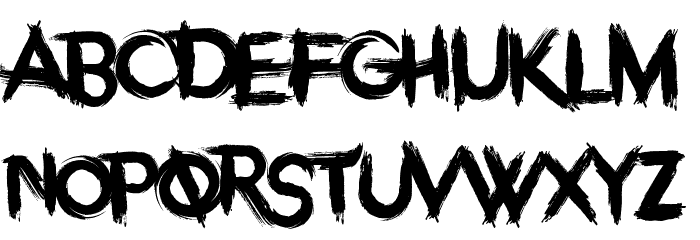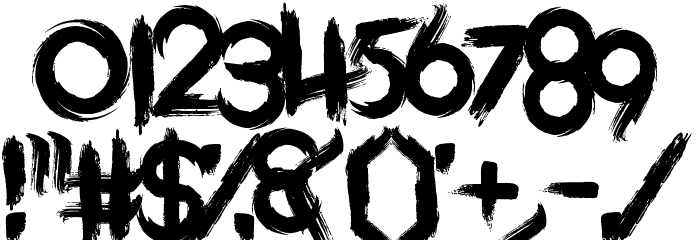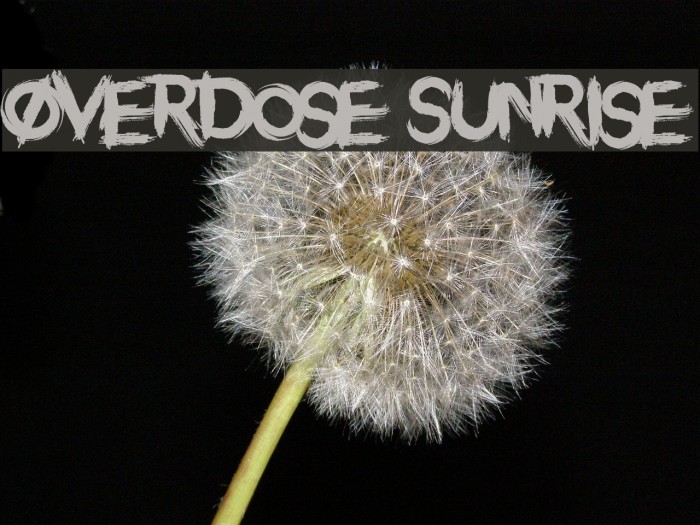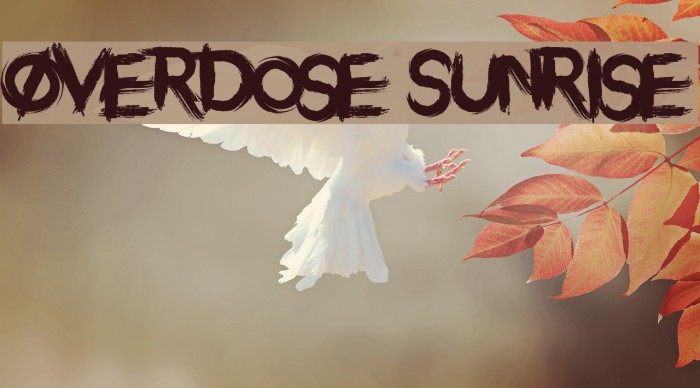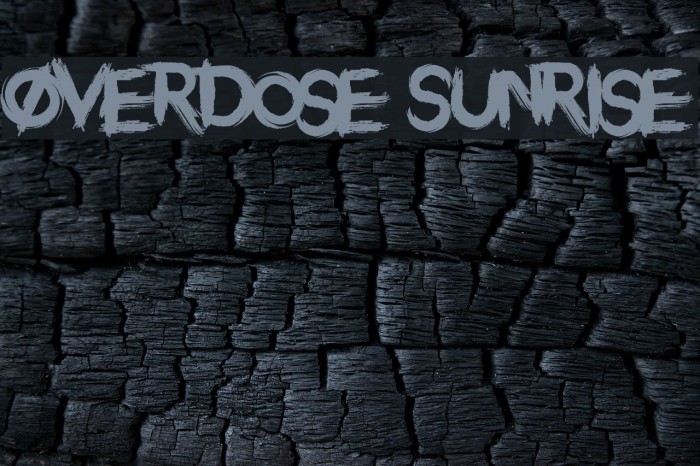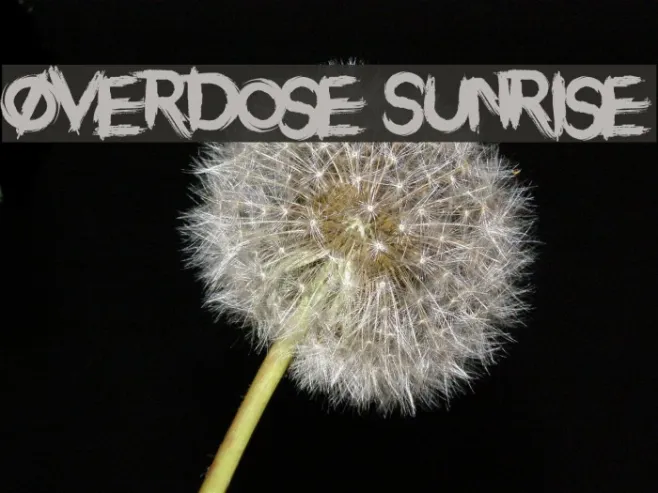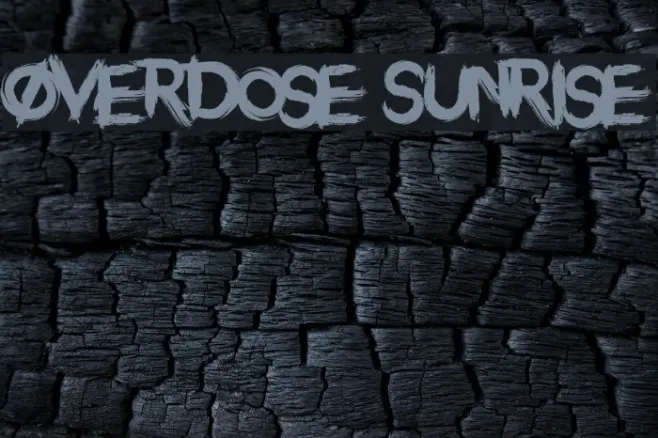
Overdose Sunrise Font
This font features a bold, brushstroke style that conveys a sense of raw energy and artistic flair. The characters are crafted with irregular, jagged edges, giving them a hand-painted appearance. Each letter and number is distinct, with varying stroke widths that add to the dynamic and expressive nature of the font. The overall look is both edgy and creative, making it suitable for projects that require a strong visual impact. The uppercase and lowercase letters maintain a consistent style, while the numbers and special characters complement the overall aesthetic.
A bold, brushstroke font with an edgy, hand-painted appearance.
- Proposed Projects: Ideal for album covers, poster designs, street art-inspired branding, and creative advertising campaigns.
- Overall Style: Modern, Artistic